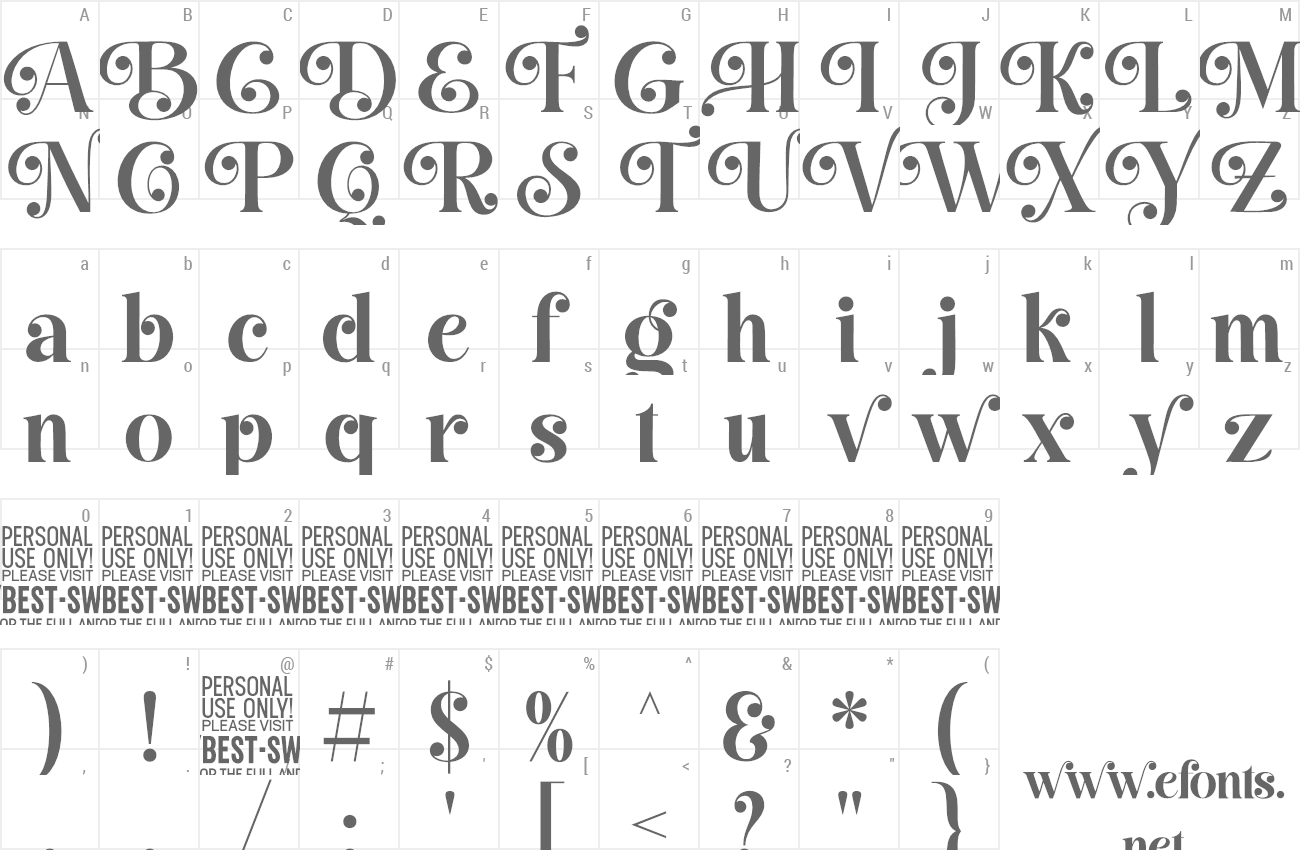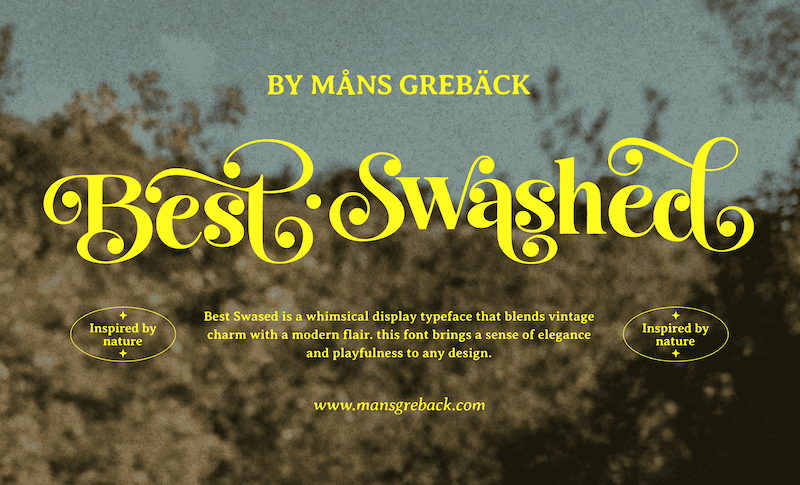
Preview and download Best Swashed Font. Created by Måns Grebäck in Fancy Retro styles with Free for personal use license.
NOTE: This font is for PERSONAL USE ONLY! To purchase a commercial license, visit: https://www.mansgreback.com/product/best-swashed Best Swashed is a decorative serif typeface designed by Mans Greback, radiating bold charm and ornamental flair. Each letterform is crafted with striking swirls and curling terminals, giving the impression of vintage signage infused with playful elegance. The uppercase characters stand with dramatic presence, while the lowercase maintains harmony with refined, flowing details. For questions, please visit https://mansgreback.com/faq |